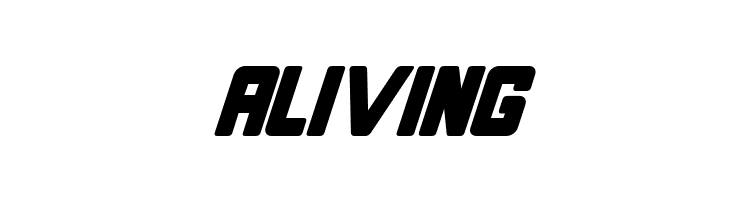
Model Regular Font
- Font: Model Regular
( Fonts by Grafito Design - dibujosenlinea.ideasintegrales.net )
A bold, blocky font with a modern, industrial aesthetic.